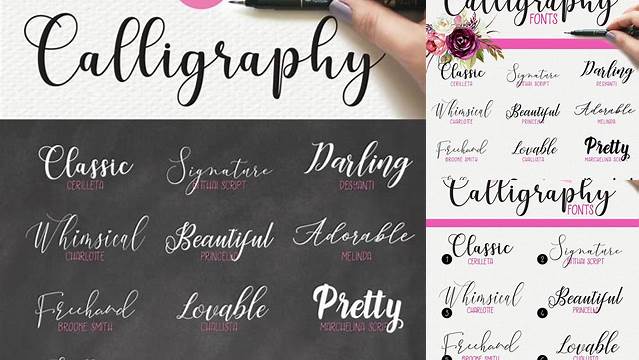
Free Calligraphy Font Generator Online: Create Stunning Text
Are you looking to add a touch of elegance and sophistication to your designs? Do you admire the flowing lines and artistic flair of calligraphy fonts? Well, you're in luck! Creating stunning calligraphy has never been easier, thanks to the plethora of free online calligraphy font creators available. In this comprehensive guide, we'll explore the exciting world of online calligraphy tools, helping you transform ordinary text into mesmerizing masterpieces. Whether you're a seasoned designer or a complete beginner, this article will provide you with the knowledge and resources you need to unleash your inner calligrapher. We'll delve into the benefits of using online tools, highlight some of the best free options, and even give you tips and tricks to create truly unique and captivating calligraphy. So, let's dive in and discover how you can effortlessly craft beautiful lettering, all without spending a dime!
Why Use an Online Calligraphy Font Creator?
In today's digital age, we have a wealth of resources at our fingertips, and calligraphy font creators are no exception. Online calligraphy font creators offer a fantastic way to generate stunning lettering without the need for expensive software or extensive training. These tools are generally user-friendly, making them accessible to everyone, regardless of their design experience. Think about it: Gone are the days of painstakingly practicing each stroke with a calligraphy pen and ink. Now, you can simply type in your desired text, experiment with various font styles, and instantly see the results. This ease of use is a major advantage, especially for those who are new to calligraphy or need to create lettering quickly for a project. These platforms also offer a diverse array of customization options, allowing you to fine-tune every aspect of your design. You can adjust the font size, color, spacing, and even add flourishes and embellishments to create a truly unique look. This level of control ensures that your calligraphy perfectly matches your vision and the specific requirements of your project. Imagine you're designing invitations for a wedding β with an online tool, you can easily create elegant and personalized calligraphy that reflects the special occasion. Furthermore, many online calligraphy font creators are completely free to use, making them an incredibly budget-friendly option. You can explore a vast library of fonts and experiment with different styles without any financial commitment. This is particularly beneficial for students, hobbyists, or anyone who wants to explore calligraphy without investing in expensive software. You can try out different styles, learn what you like, and refine your skills, all without spending a single penny. Another significant advantage of using online tools is the convenience they offer. You can access them from anywhere with an internet connection, whether you're using your computer, tablet, or even your smartphone. This flexibility allows you to work on your calligraphy projects whenever and wherever inspiration strikes. So, whether you're at home, in the office, or on the go, you can always tap into your creative potential. Plus, many online tools offer features like downloadable font files, allowing you to use your creations in various design software and applications. This seamless integration makes it easy to incorporate your calligraphy into your broader design workflow. Whether you're creating logos, posters, websites, or social media graphics, you can seamlessly integrate your custom calligraphy, adding a personal and artistic touch to your projects.
Top Free Online Calligraphy Font Creators
Alright, let's get to the exciting part β exploring some of the best free online calligraphy font creators! The internet is overflowing with options, but we've handpicked a few standouts that offer a great balance of user-friendliness, features, and stunning results. One of the most popular choices is FontSpace (www.fontspace.com). FontSpace boasts an enormous library of free fonts, including a vast selection of calligraphy styles. You can easily browse through the categories, preview the fonts, and download them for use in your projects. The site also has a helpful search function that allows you to filter fonts by various criteria, such as style, license, and popularity. This makes it super easy to find the perfect calligraphy font for your specific needs. Another fantastic option is DaFont (www.dafont.com), a website that is a treasure trove of free fonts. DaFont's calligraphy section is particularly impressive, featuring everything from elegant script fonts to bold and modern styles. Like FontSpace, DaFont allows you to preview fonts before downloading them, ensuring that you choose the perfect fit for your design. DaFont also offers a variety of font licenses, so be sure to check the terms of use before incorporating a font into your commercial projects. For a more interactive experience, check out Calligraphy.org (calligraphy.org). While not a traditional font creator in the sense that it doesn't allow you to generate custom fonts, Calligraphy.org offers a wealth of resources for learning calligraphy. It features tutorials, guides, and examples of different calligraphy styles, making it an excellent place to hone your skills and find inspiration. If you're looking to create custom calligraphy text online, consider using tools like FontStruct (fontstruct.com). FontStruct is a unique online font editor that allows you to build your own fonts from geometric shapes. While it may sound complex, FontStruct's intuitive interface makes it surprisingly easy to create stunning calligraphy fonts, even if you have no prior experience. The platform also has a vibrant community of users who share their creations, giving you access to a vast library of user-generated fonts. Another noteworthy option is Canva (www.canva.com), a popular online design platform that offers a range of tools for creating graphics, presentations, and more. Canva also has a solid selection of calligraphy fonts that you can use in your designs. While Canva isn't strictly a font creator, its user-friendly interface and drag-and-drop functionality make it a great option for incorporating calligraphy into your projects. Plus, Canva offers a free plan with access to a decent selection of fonts and design elements. These are just a few of the many free online calligraphy font creators available. By exploring these resources and experimenting with different styles, you'll be well on your way to creating beautiful and unique lettering.
Tips and Tricks for Creating Stunning Calligraphy Online
Now that you know about some fantastic online tools, let's talk about how to make your calligraphy truly shine! Creating stunning lettering is more than just picking a pretty font; it's about understanding the nuances of calligraphy and using the tools effectively. Here are some tips and tricks to help you create calligraphy that wows: First and foremost, experiment with different fonts. The beauty of online calligraphy font creators is that they offer a wide variety of styles. Don't be afraid to try out different fonts and see what resonates with you. Consider the mood and message you want to convey. A formal invitation might call for an elegant script font, while a casual poster might benefit from a bolder, more playful style. Play around with different options until you find the perfect fit. Next, pay attention to spacing. Proper spacing is crucial for creating legible and visually appealing calligraphy. Adjust the letter spacing, word spacing, and line height to achieve a balanced and harmonious look. Too much or too little spacing can make your calligraphy look cluttered or difficult to read. Most online tools allow you to adjust these parameters, so take advantage of those features. Another important aspect is color. The color of your calligraphy can significantly impact its overall aesthetic. Consider the background color and the overall color scheme of your design. A contrasting color can make your calligraphy stand out, while a complementary color can create a more subtle and harmonious effect. Experiment with different color combinations to see what works best for your project. Also, think about adding flourishes and embellishments. Flourishes are decorative strokes that add elegance and flair to calligraphy. Many online tools offer pre-designed flourishes that you can easily add to your text. Alternatively, you can create your own flourishes using the drawing tools in your design software. Experiment with different flourishes to create a unique and personalized look. Remember the hierarchy in your design. Calligraphy is often used for headings, titles, or special elements in a design. To ensure that your calligraphy stands out, consider the overall hierarchy of your design. Use different font sizes, weights, and styles to create a visual hierarchy that guides the viewer's eye. Your calligraphy should be a focal point, but it should also complement the other elements in your design. Don't forget about practicing and refining your skills. While online tools make calligraphy accessible to everyone, mastering the art of beautiful lettering takes practice. Experiment with different fonts, styles, and techniques to develop your own unique style. The more you practice, the better you'll become at creating stunning calligraphy. Finally, get inspired! Look at examples of calligraphy online, in books, and in other designs. Pay attention to the different styles, techniques, and applications of calligraphy. The more inspiration you gather, the more creative you'll become. By following these tips and tricks, you'll be well-equipped to create stunning calligraphy using online tools. Remember, practice makes perfect, so keep experimenting and refining your skills. With a little effort and creativity, you can transform ordinary text into captivating works of art.
Incorporating Calligraphy into Your Designs
So, you've created some beautiful calligraphy β now what? The possibilities are endless! Incorporating calligraphy into your designs can add a touch of elegance, personality, and artistry. Let's explore some of the exciting ways you can use your newfound calligraphy skills: One of the most popular uses for calligraphy is in wedding invitations and stationery. Elegant script fonts can add a touch of romance and sophistication to your wedding announcements, save-the-dates, and thank-you notes. Imagine addressing your invitations with beautiful calligraphy β it's a surefire way to impress your guests and set the tone for your special day. You can also use calligraphy to create custom monograms, table numbers, and other decorative elements for your wedding. Another fantastic application is in logo design and branding. A well-crafted calligraphy logo can help your brand stand out and convey a sense of quality, craftsmanship, and artistry. Calligraphy logos are particularly popular for businesses in the creative industries, such as photographers, designers, and artists. However, they can also be effective for businesses in other sectors, such as fashion, beauty, and food. A calligraphy logo can add a touch of personality and elegance to your brand identity. Social media graphics and marketing materials are another excellent canvas for your calligraphy skills. Adding calligraphy to your social media posts, ads, and website banners can help you capture attention and create a visually appealing brand presence. Use calligraphy for headlines, quotes, or special announcements to make your content stand out from the crowd. Calligraphy can also add a personal touch to your marketing materials, helping you connect with your audience on a more emotional level. Don't forget about personalized gifts and home dΓ©cor. Calligraphy can be used to create unique and meaningful gifts for friends and family. Imagine gifting a hand-lettered quote, a personalized nameplate, or a custom piece of art featuring beautiful calligraphy. You can also use calligraphy to decorate your home with inspirational quotes, family names, or custom artwork. Calligraphy adds a personal and artistic touch to any space, making it feel more inviting and special. Calligraphy is perfect for greeting cards and invitations. Whether you're creating birthday cards, holiday cards, or invitations for a special event, calligraphy can add a touch of elegance and personalization. Use calligraphy to write the recipient's name, a heartfelt message, or a decorative border. A handwritten greeting card with beautiful calligraphy is sure to be treasured. For the creatively inclined, consider creating art prints and posters. Calligraphy can be used to create stunning art prints featuring inspirational quotes, song lyrics, or original designs. These prints can be sold online or at craft fairs, or they can be used to decorate your own home. Calligraphy posters can also be used for promotional purposes, such as advertising events or products. These are just a few examples of how you can incorporate calligraphy into your designs. The key is to be creative and experiment with different applications. Whether you're designing for personal or professional purposes, calligraphy can add a touch of elegance, personality, and artistry to your projects. So, go ahead and unleash your inner calligrapher β the possibilities are endless!
Mastering Calligraphy: Next Steps
By now, you've learned a ton about creating calligraphy online, from the benefits of using online tools to specific tips and tricks for crafting stunning lettering. You've explored some of the best free online font creators and discovered exciting ways to incorporate calligraphy into your designs. But the journey doesn't end here! If you're truly passionate about calligraphy, there's always more to learn and explore. Mastering calligraphy is an ongoing process, and there are many avenues you can pursue to further hone your skills. One of the most effective ways to improve your calligraphy is to practice, practice! Set aside some time each day or week to dedicate to practicing your lettering. Experiment with different styles, techniques, and tools. The more you practice, the more natural and fluid your calligraphy will become. Try focusing on specific letterforms or words to refine your skills. Consider taking a calligraphy class or workshop. Learning from an experienced instructor can provide you with valuable feedback and guidance. A good teacher can help you identify areas for improvement and teach you new techniques. Calligraphy classes are often offered at community centers, art schools, and online platforms. The structured learning environment can accelerate your progress. Explore different calligraphy styles. There are many different styles of calligraphy, each with its own unique characteristics. From classic script styles like Copperplate and Spencerian to modern styles like brush lettering and faux calligraphy, there's a whole world of styles to discover. Experiment with different styles to find the ones that resonate with you. Learning new styles can broaden your creative horizons and make your calligraphy more versatile. Study calligraphy books and resources. There are many excellent books and resources available that can teach you the fundamentals of calligraphy. These resources often provide detailed instructions, examples, and exercises to help you improve your skills. Look for books that focus on specific styles or techniques that you're interested in learning. Online resources like blogs, tutorials, and forums can also be valuable learning tools. Join a calligraphy community. Connecting with other calligraphy enthusiasts can be a great way to learn, share your work, and get feedback. Online forums, social media groups, and local calligraphy guilds can provide a supportive and inspiring community. Sharing your work and seeing the work of others can motivate you to improve and explore new creative avenues. Gather feedback on your work. Constructive criticism is essential for growth. Share your calligraphy with friends, family, or other artists and ask for their feedback. Be open to suggestions and use the feedback to identify areas for improvement. Even small adjustments can make a big difference in the overall quality of your calligraphy. Invest in quality tools and supplies. While you can create beautiful calligraphy with basic tools, investing in quality materials can enhance your experience and improve your results. Consider purchasing a good calligraphy pen, high-quality ink, and suitable paper. Experiment with different tools to find the ones that work best for you. Don't be afraid to try new things! Calligraphy is a creative art form, so don't be afraid to experiment with different techniques, styles, and tools. Try combining calligraphy with other art forms, such as watercolor painting or illustration. The more you explore, the more unique and personal your calligraphy will become. Mastering calligraphy is a journey that requires dedication, practice, and a passion for the art form. By following these next steps, you can continue to grow and develop your skills, transforming ordinary letters into extraordinary works of art.
In conclusion, the world of online calligraphy font creators opens up a realm of possibilities for anyone looking to add a touch of elegance and artistry to their designs. Whether you're a seasoned professional or just starting your creative journey, these tools provide an accessible and often free way to explore the beauty of calligraphy. We've discussed the numerous benefits of using online calligraphy tools, from their user-friendly interfaces and vast font libraries to their cost-effectiveness and convenience. We've also highlighted some of the top free online calligraphy font creators, giving you a starting point for your exploration. Furthermore, we've shared valuable tips and tricks for creating stunning calligraphy online, emphasizing the importance of experimentation, spacing, color, and personal style. By incorporating these techniques into your practice, you can elevate your calligraphy from simple lettering to captivating art. We've also delved into the diverse applications of calligraphy, from wedding invitations and logo design to social media graphics and personalized gifts, showcasing the versatility of this timeless art form. Whether you're designing for personal or professional purposes, calligraphy can add a unique and elegant touch to your projects. Finally, we've outlined the next steps for mastering calligraphy, encouraging you to practice regularly, seek feedback, explore different styles, and connect with the calligraphy community. The journey of learning calligraphy is a continuous process, and the more you dedicate yourself to the art, the more rewarding it becomes. So, go ahead, embrace the world of online calligraphy font creators, and unleash your inner calligrapher. With the right tools, techniques, and a passion for lettering, you can create stunning calligraphy that will captivate and inspire.